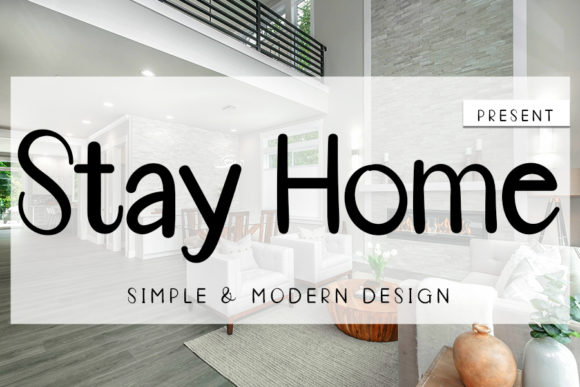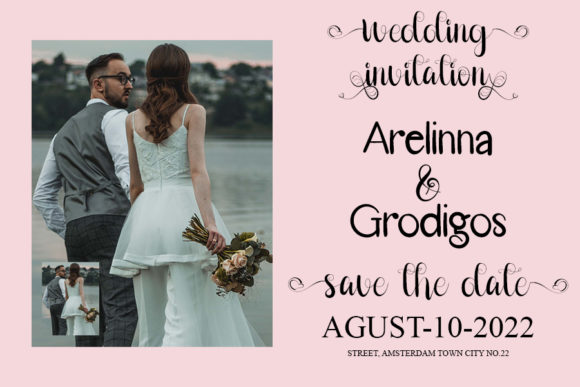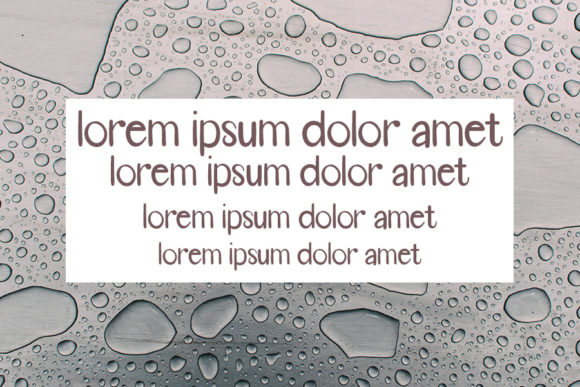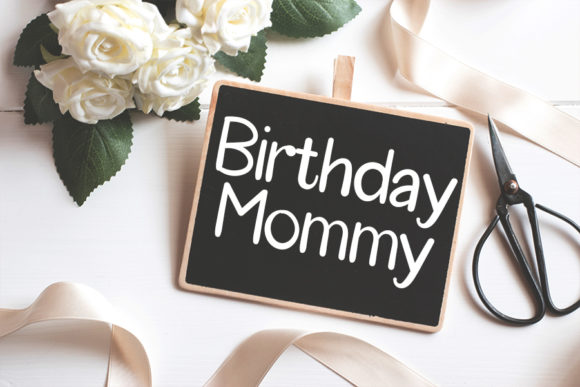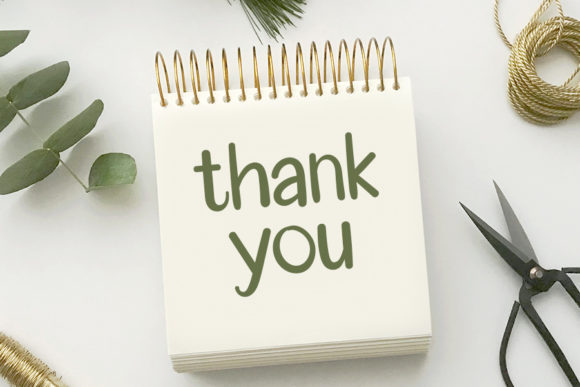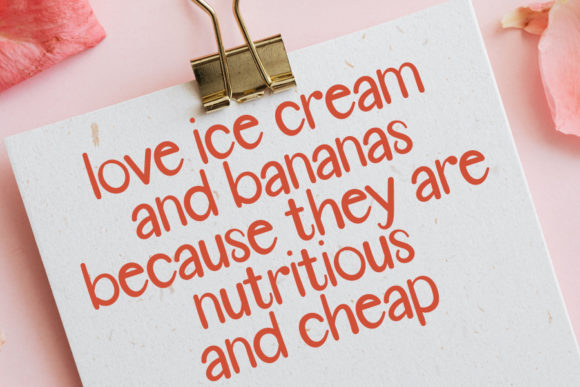
Stay Home Font
About Stay Home Font
Stay Home is a cute and charming script font. Not too thin and not too thick, balanced and varied, this font was designed to enhance the beauty of your projects.